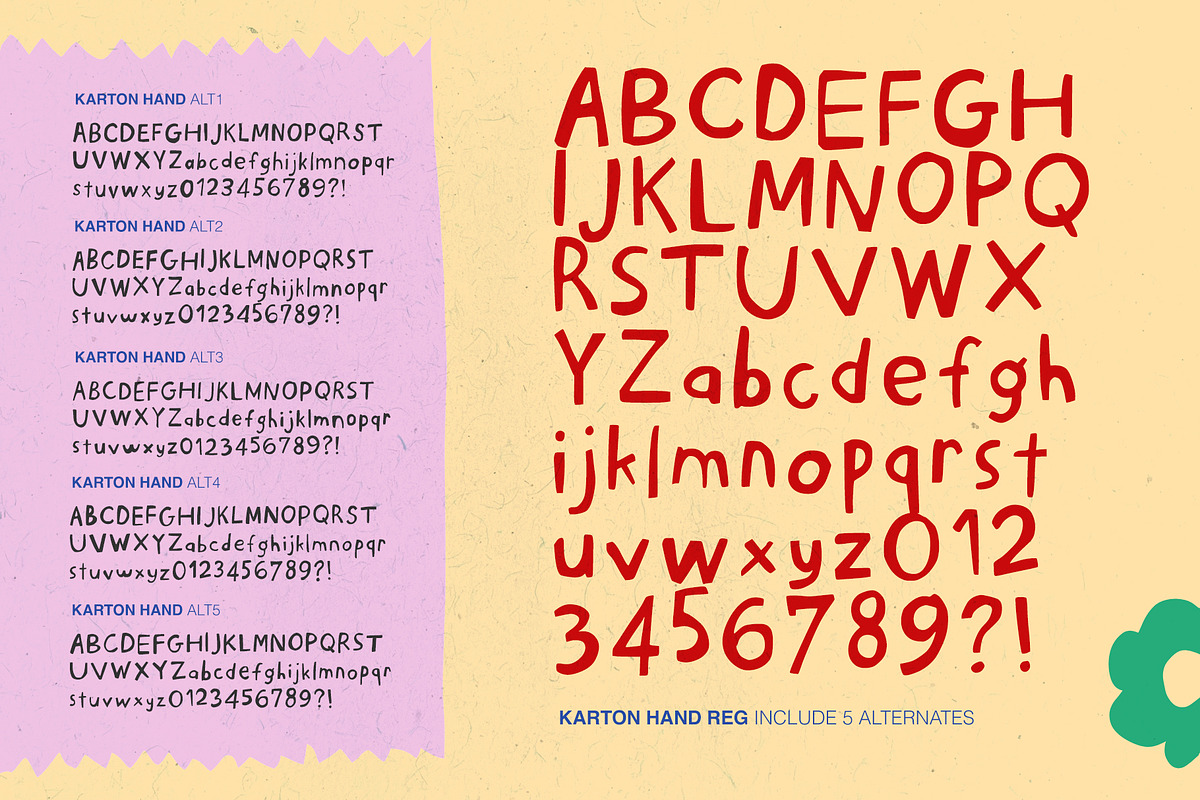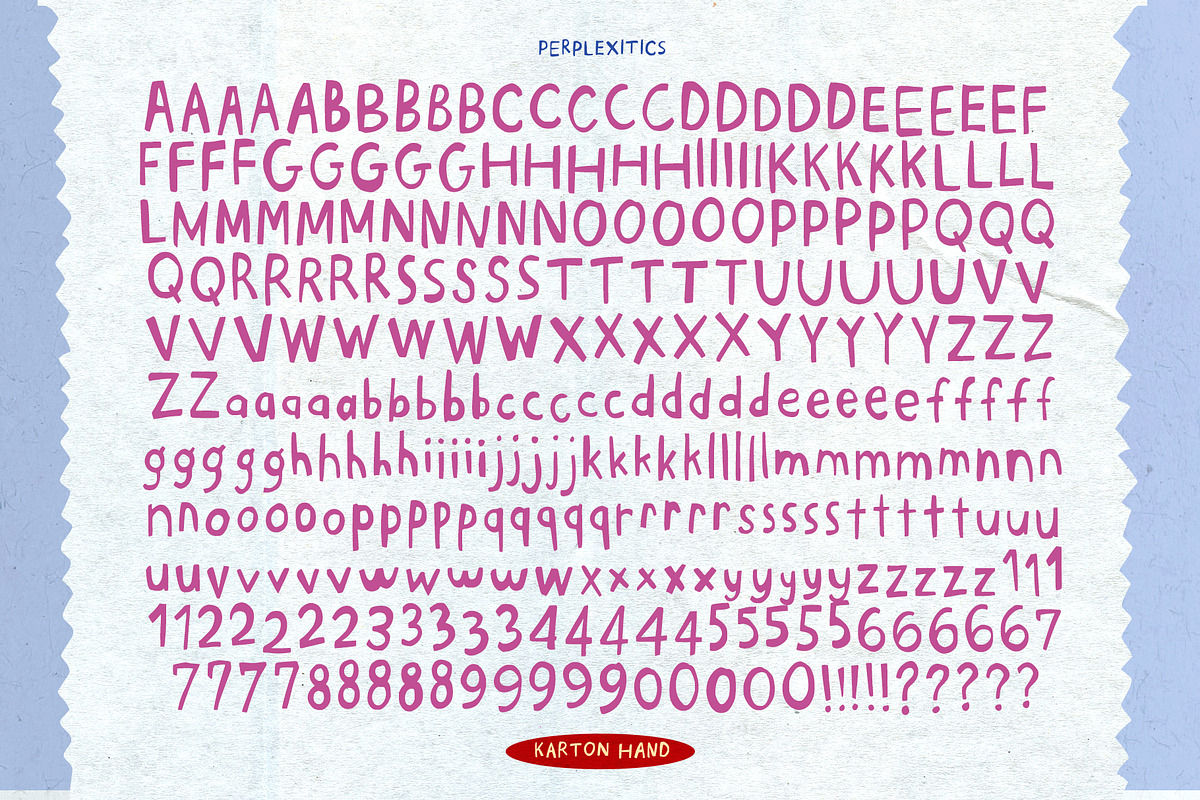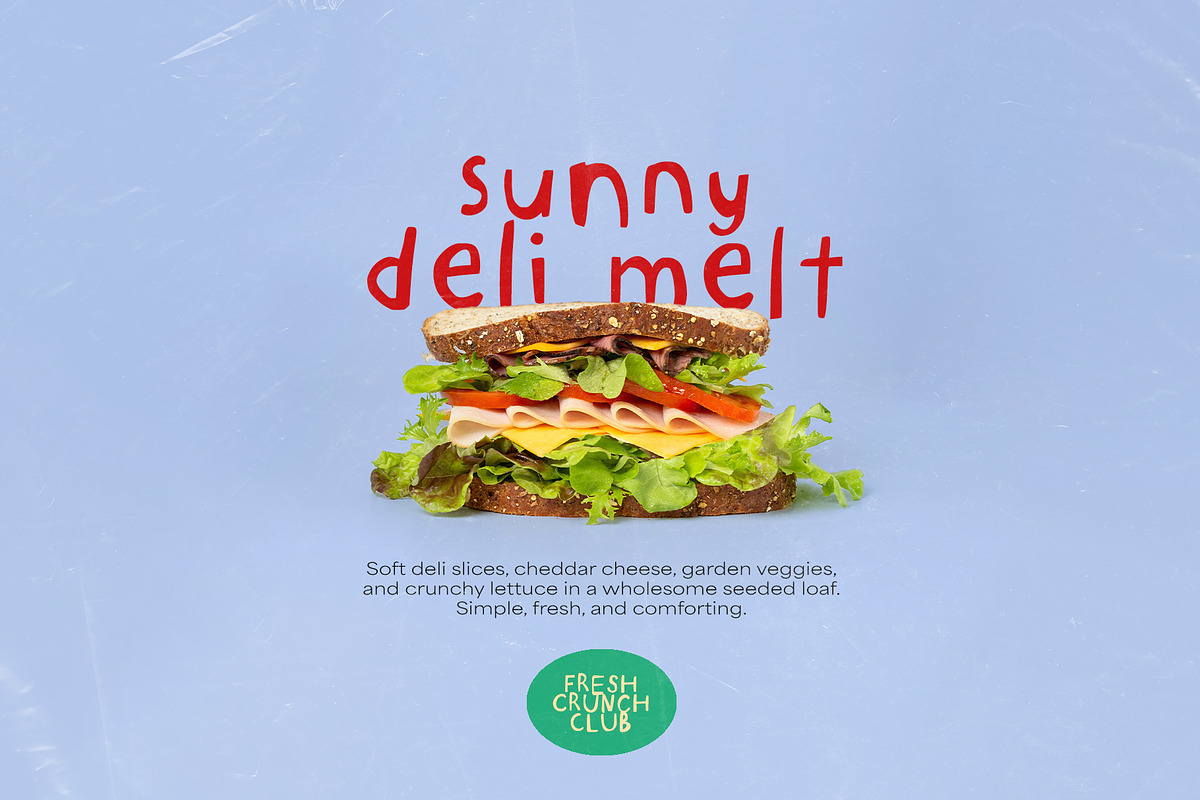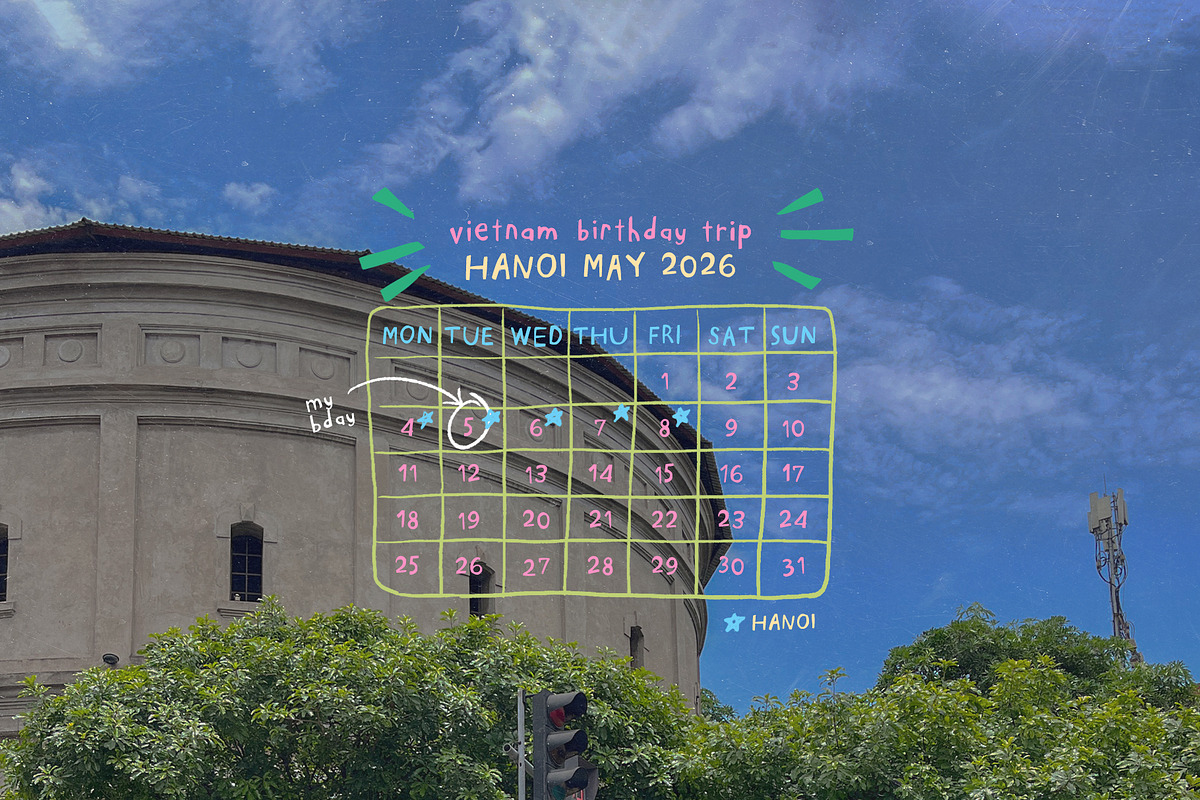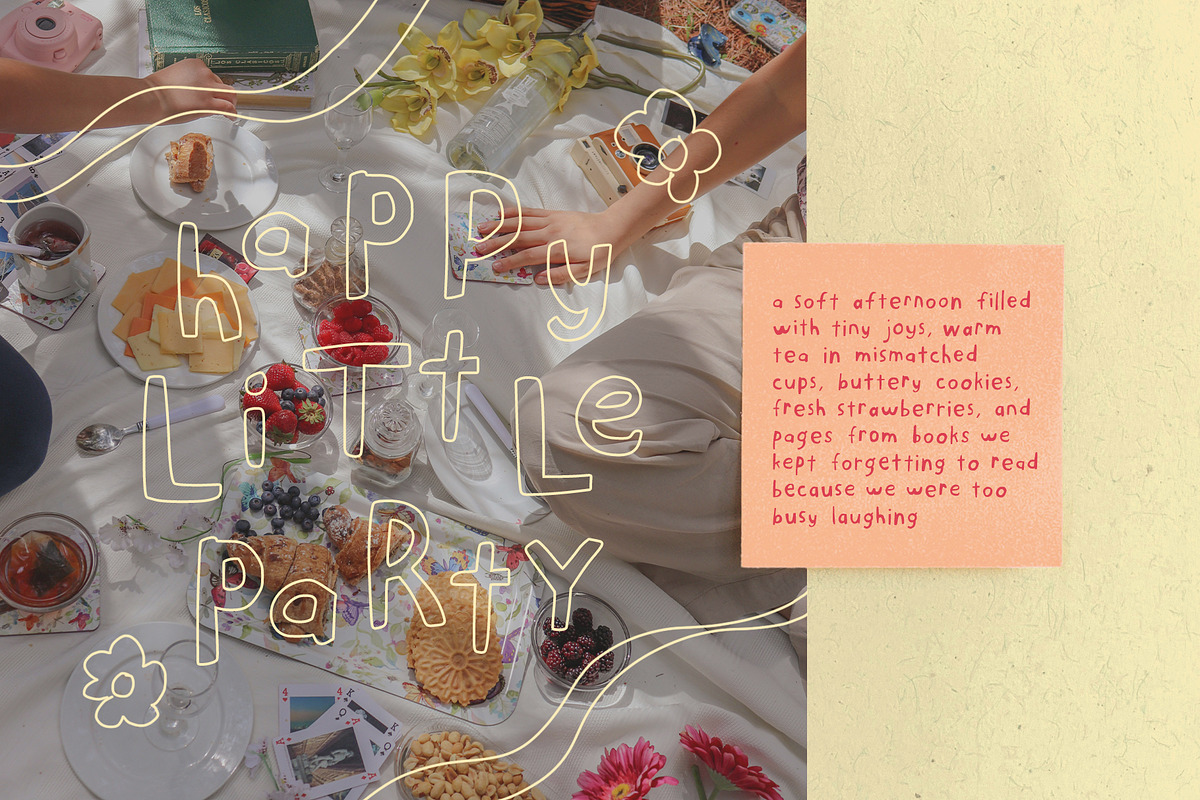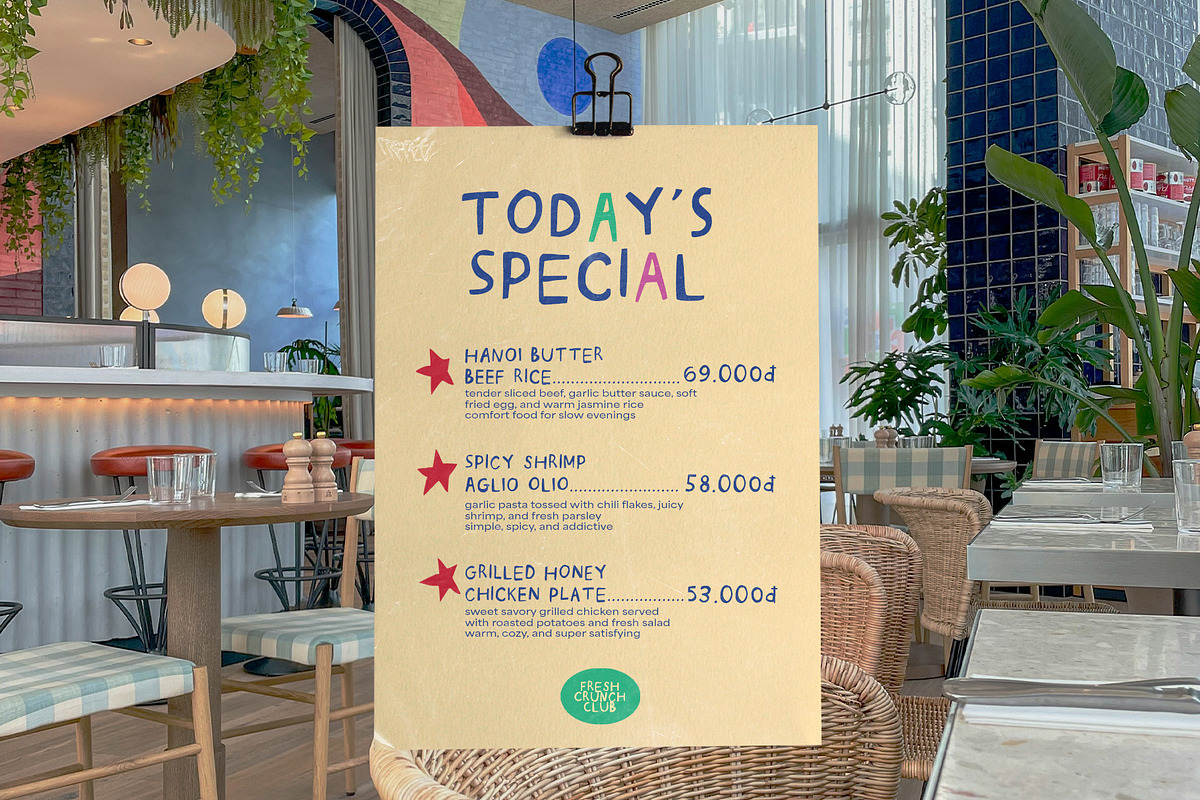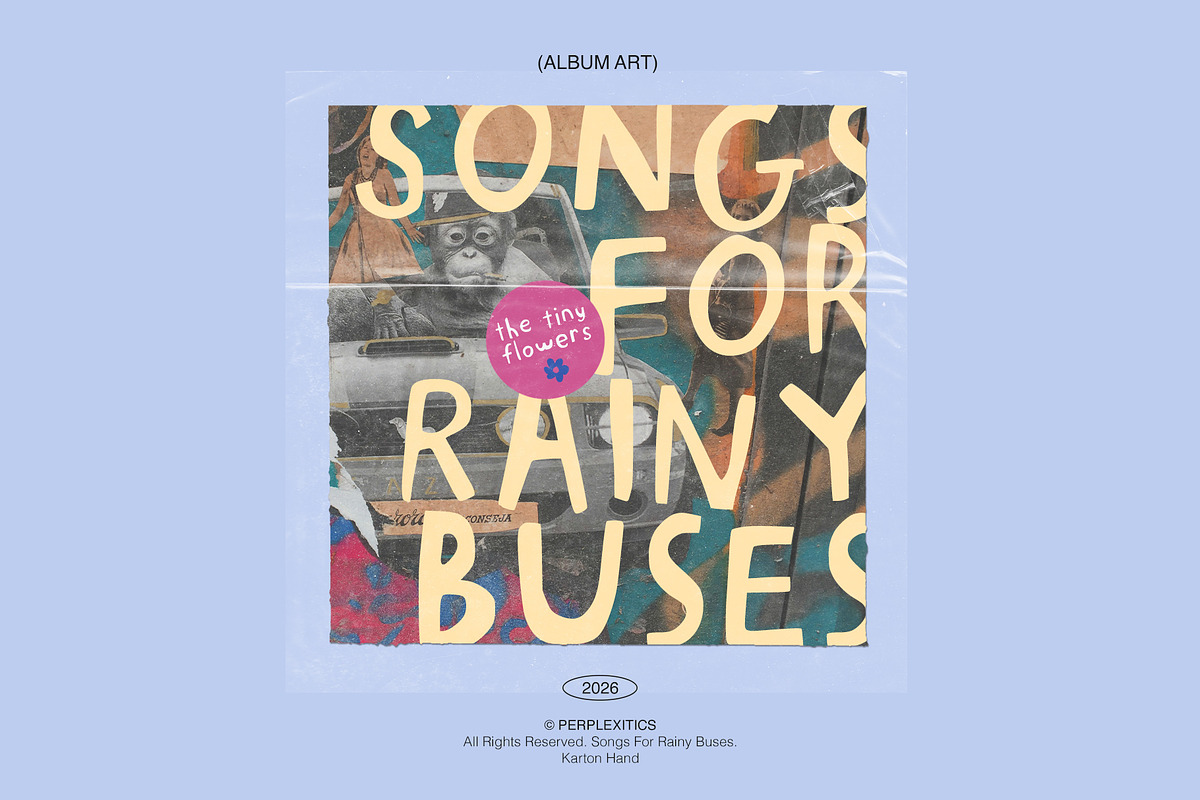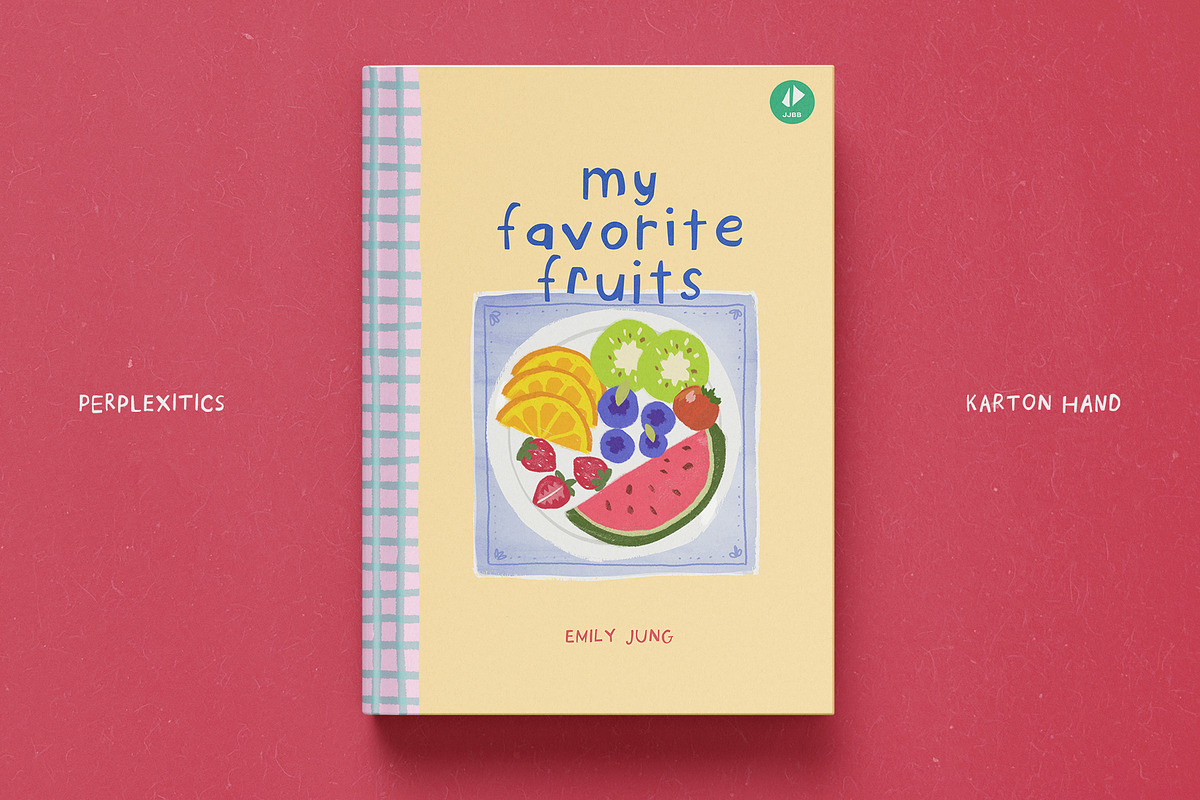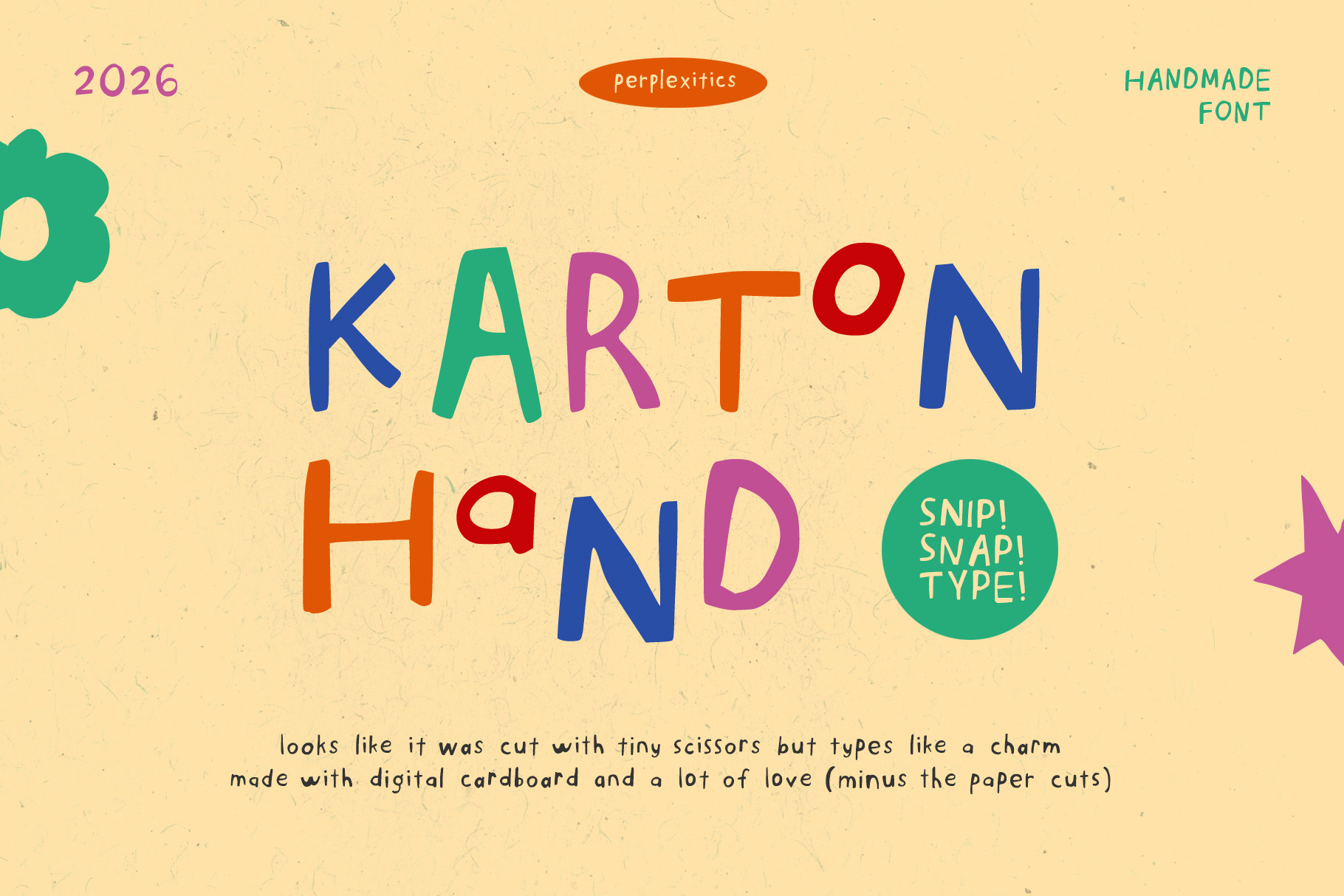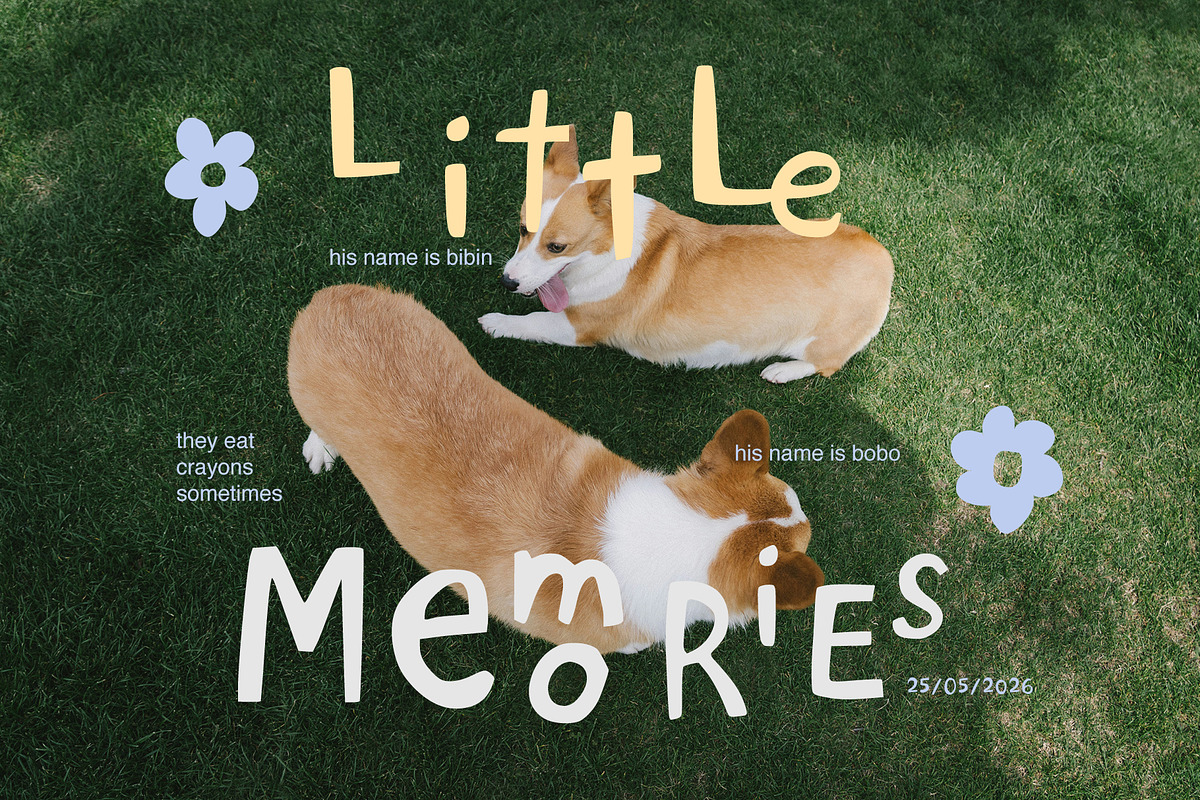
Karton Hand Handmade Font
Karton Hand is a playful handmade cutout font inspired by paper scraps, tiny scissors, and colorful cardboard crafts. Comes with 5 alternates to make your typography feel more natural and quirky.
Karton Hand is packed with everything you need, including uppercase and lowercase letters, numbers, punctuation, and alternates. Multilingual support.